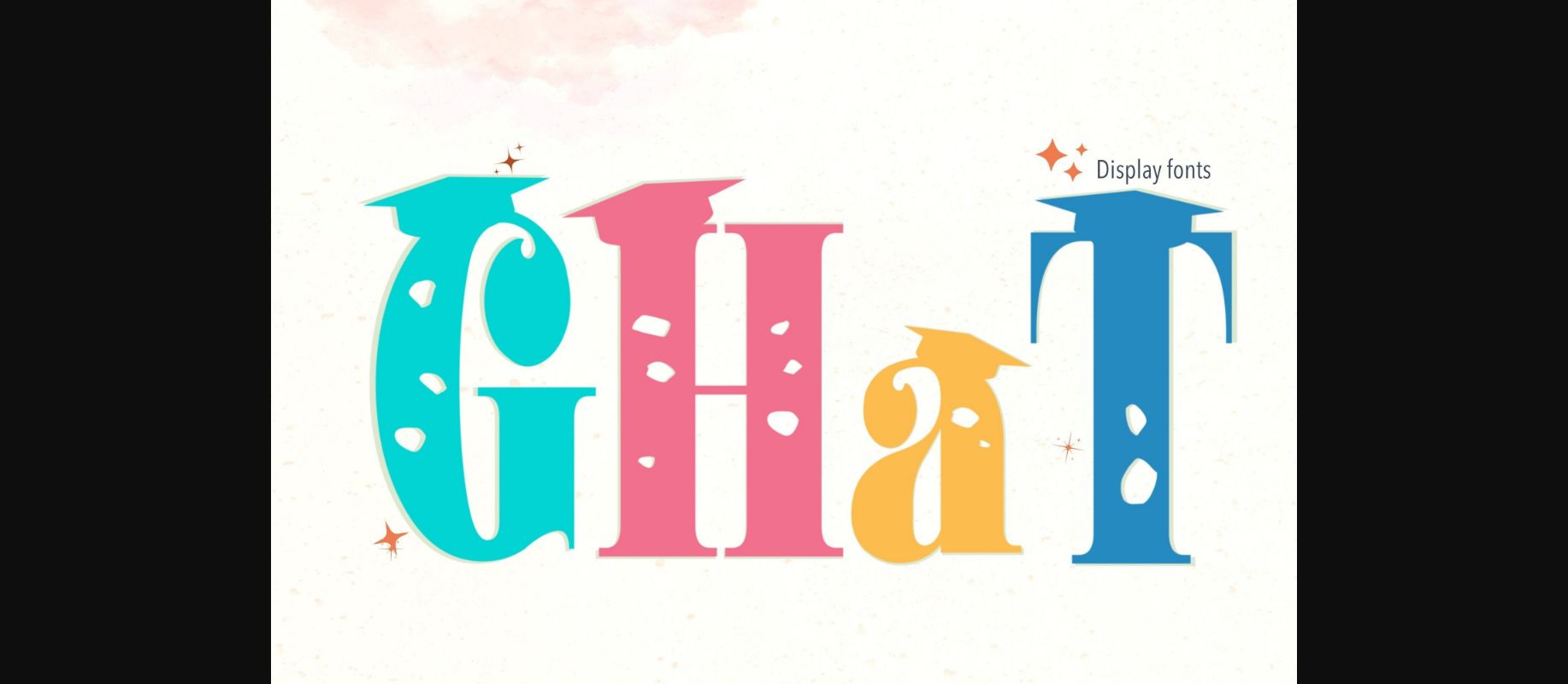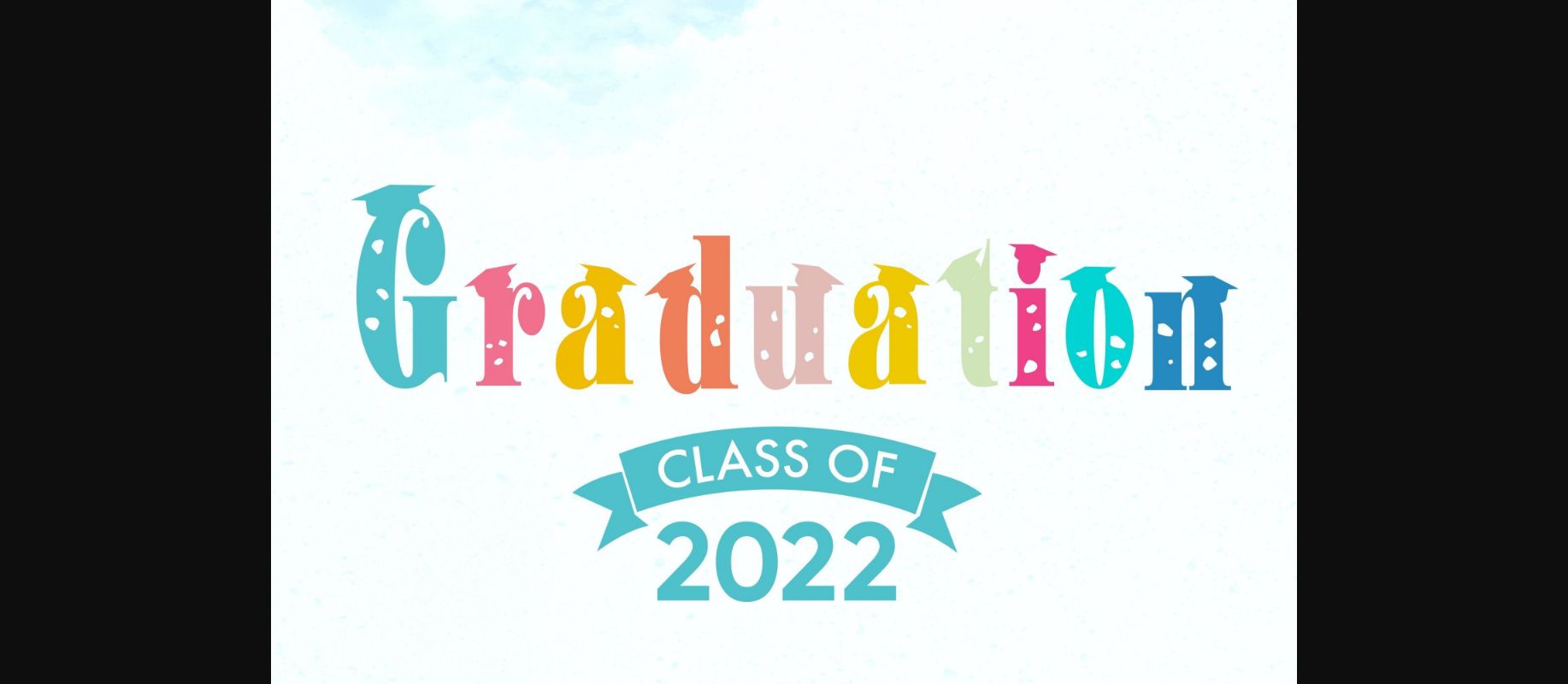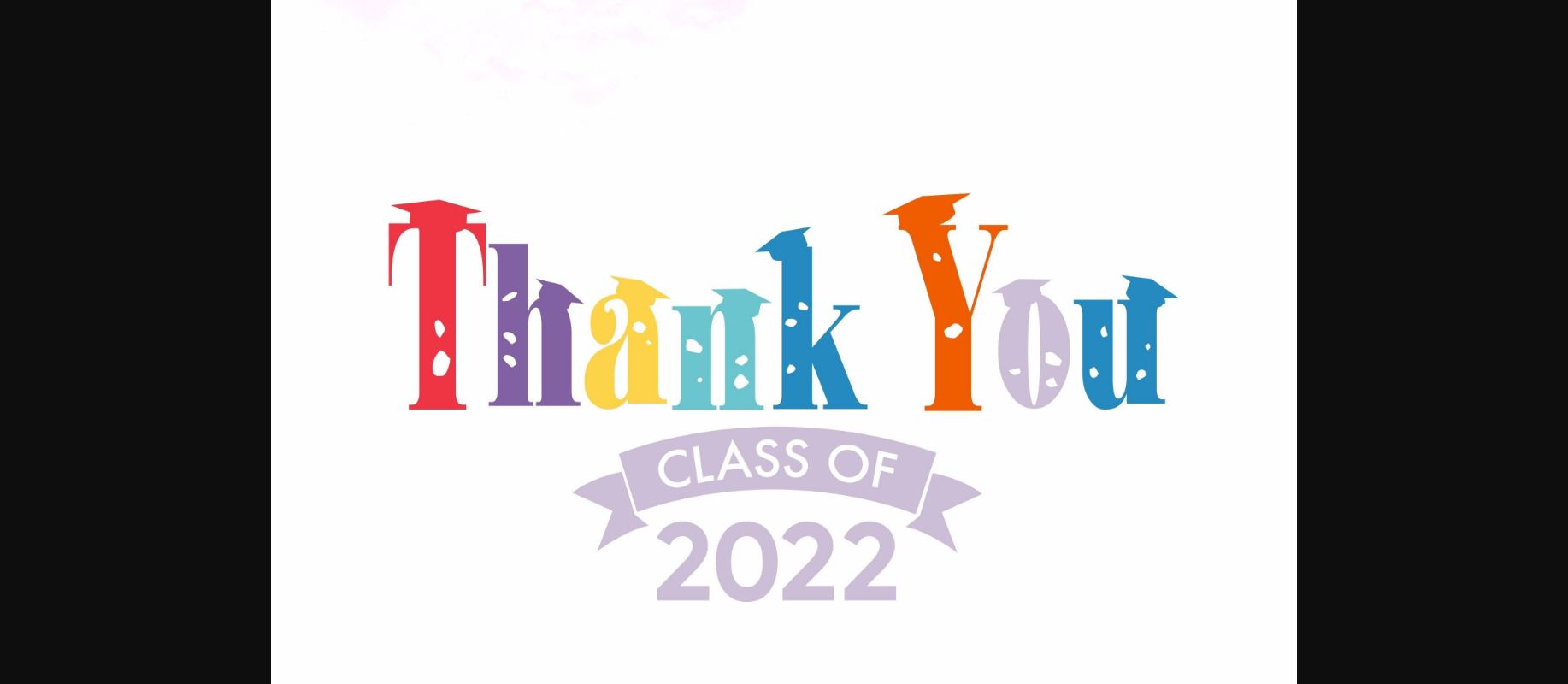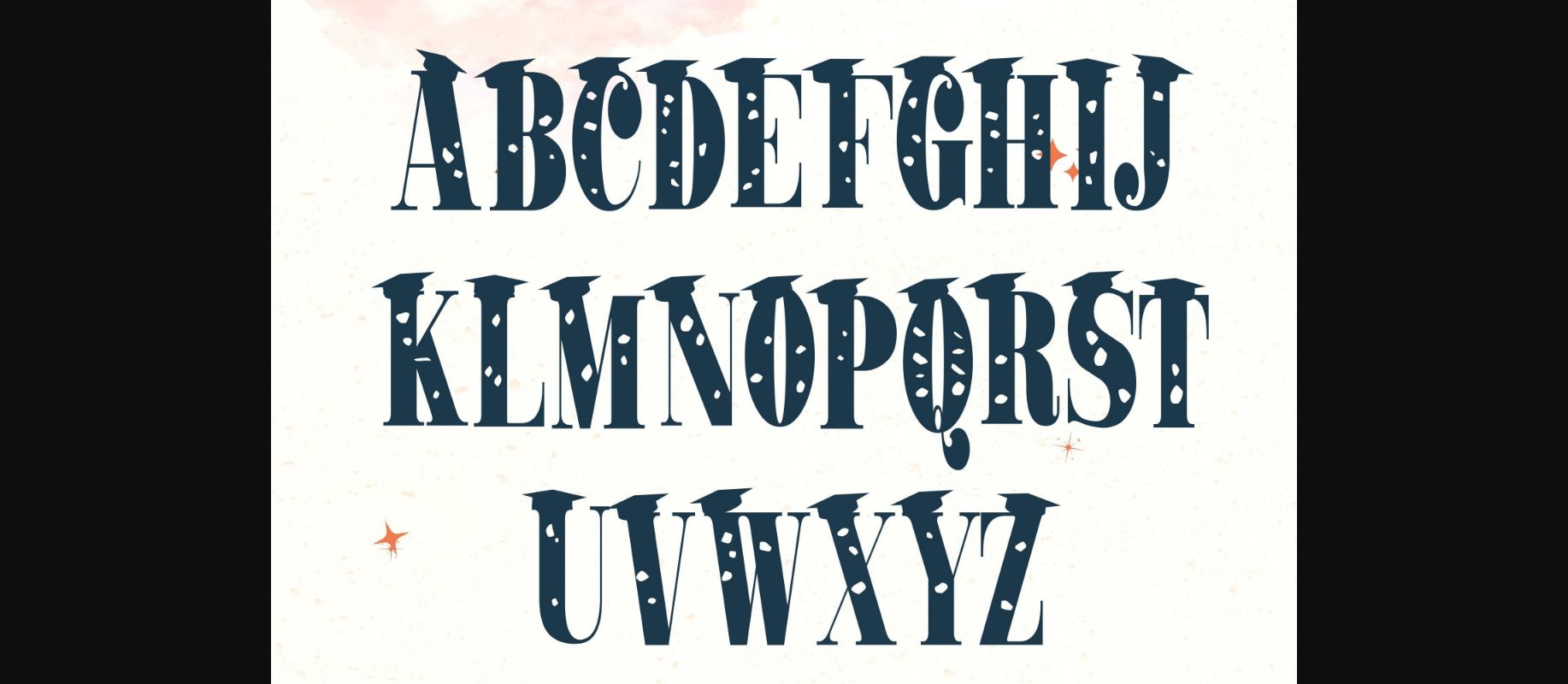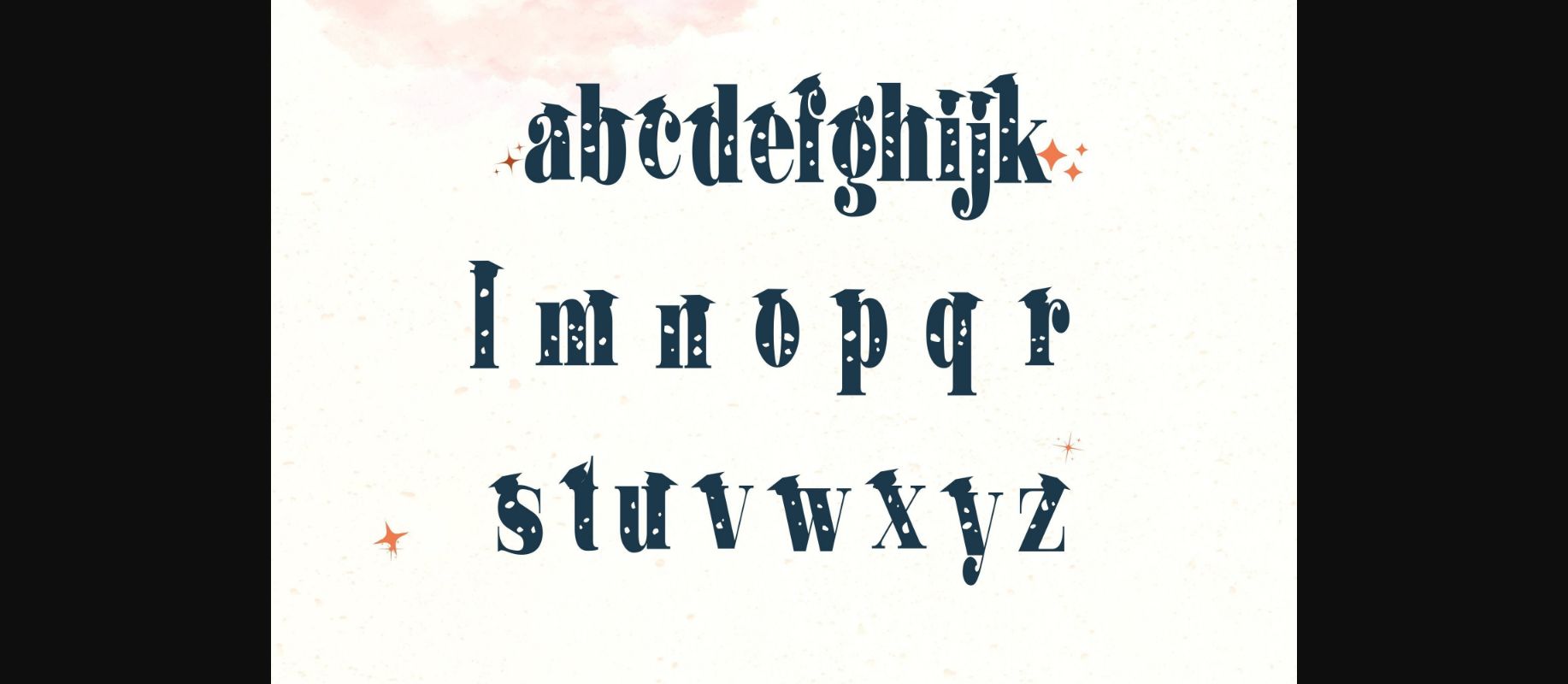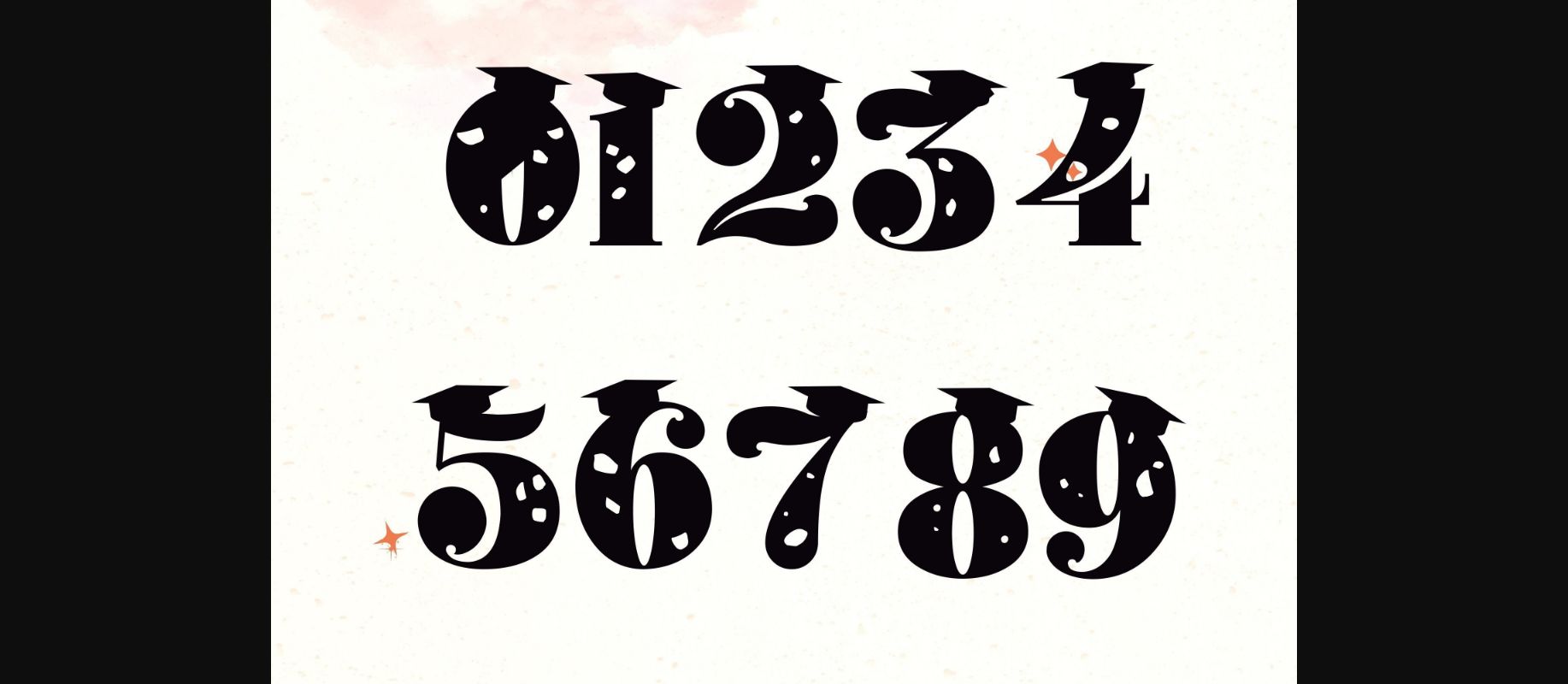
G Hat Font
About G Hat Font
G(raduate) Hat is a bold and thick lettered decorative font. It embodies playfulness and authenticity and is the perfect choice for graduation or school-related projects.